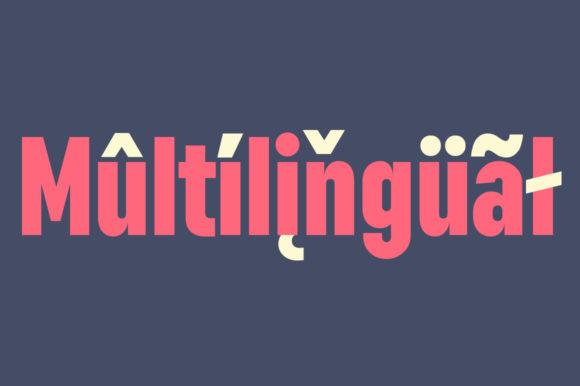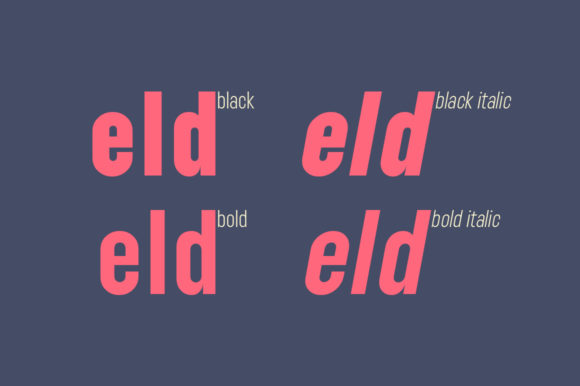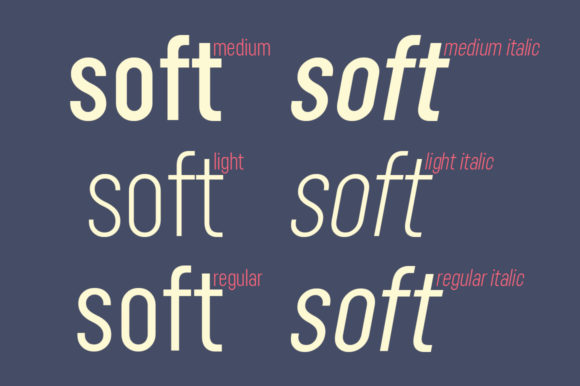
Introduction to Lostfield Font
Lostfield is a bold and thick lettered sans serif font.
Incredibly versatile, this font fits a wide pool of designs, elevating them to the highest levels Add this font to your favorite creative ideas and notice how it makes them come alive.
Key Features of Lostfield Font